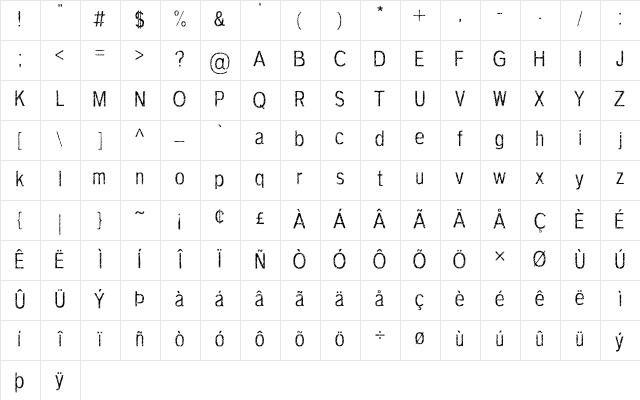
Terbium - Personal Use Only Regular
Design Context for Terbium - Personal Use Only Typeface
Terbium - Personal Use Only offers clean, dependable letterforms without strong stylistic allegiance, making it a practical choice for designers who need flexibility.